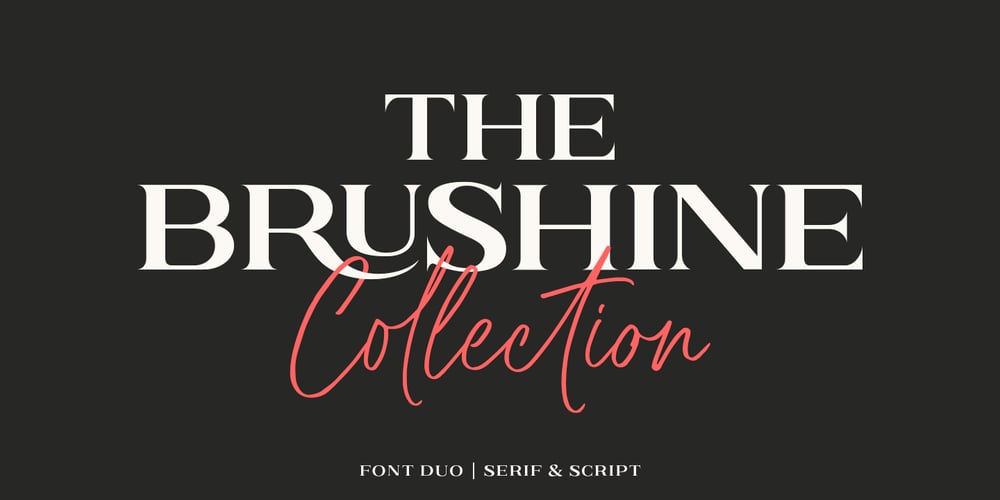
Brushine Collection
Brushine Collection font
Brushine Collection Font Family was designed by Bagas Ardiatma and published by Trustha. Brushine Collection contains 3 styles and family package options. Brushine Collection is a solid and complementary pair consisting of a serif all caps, with contrasting letter thickness and sharp edges making it more elegant and classy. As well as a handwritten script that look natural because they are made with marker by hand. All together your text will be beautiful, elegant and classy. Suitable for all creative projects, especially on, branding, advertising, product design, social media, and more.